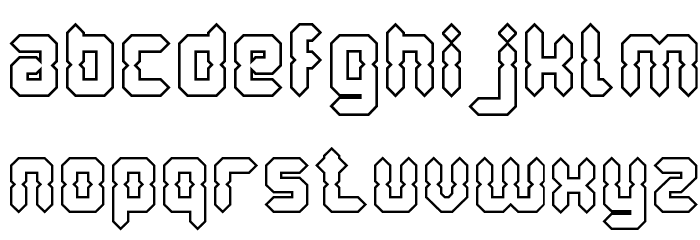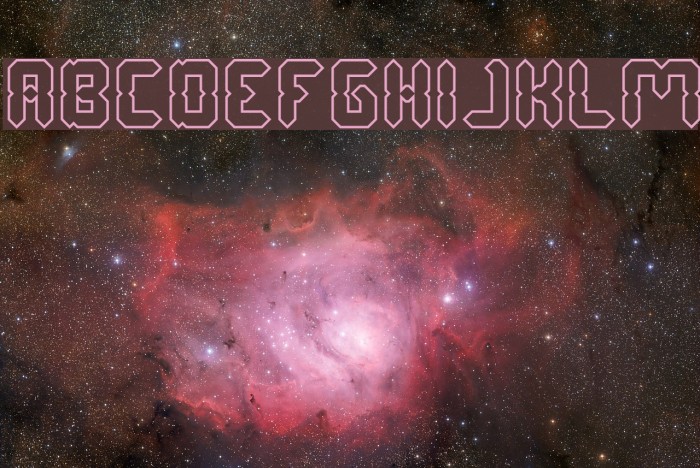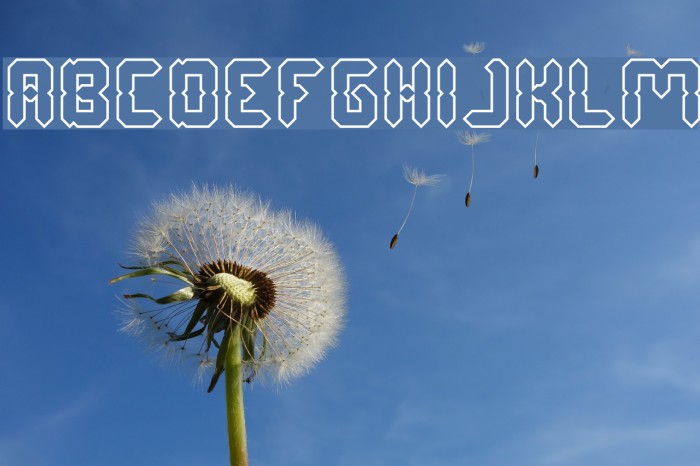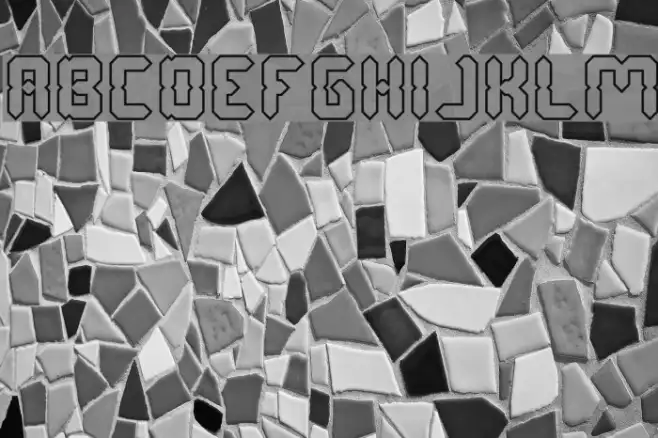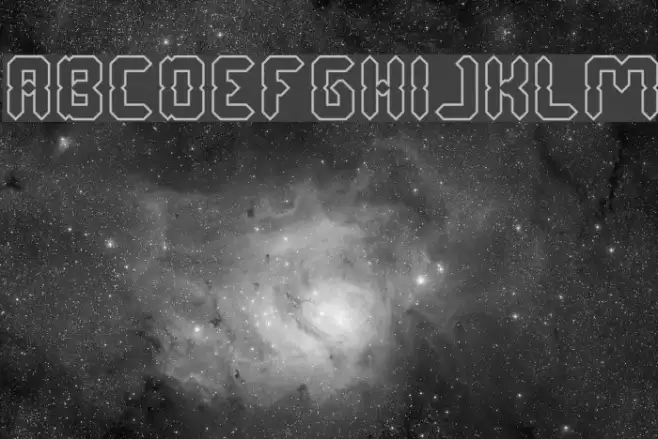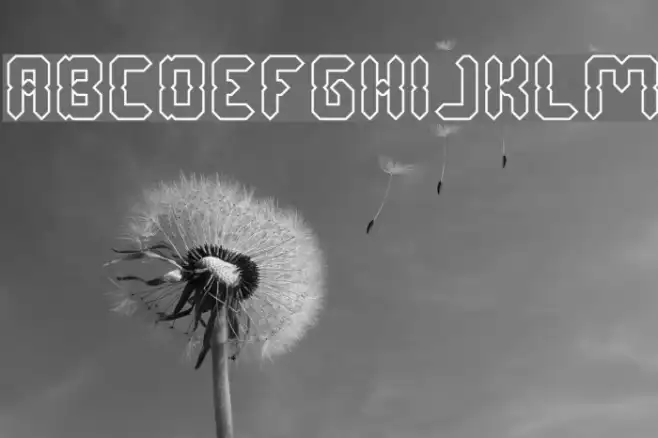
Digital Gothic-Hollow Font
This font features a bold, geometric design with a hollow interior, giving it a digital and futuristic appearance. The characters are constructed with sharp angles and straight lines, creating a sense of precision and modernity. The uppercase and lowercase letters maintain a consistent style, with the lowercase being slightly more compact. Numbers and special characters follow the same design principles, ensuring uniformity across all glyphs. The hollow aspect of the font adds a unique dimension, making it stand out in digital and print media.
A bold, geometric font with a hollow interior, exuding a digital and futuristic vibe.
- Proposed Projects: Ideal for digital art, tech-themed posters, video game graphics, and modern branding projects.